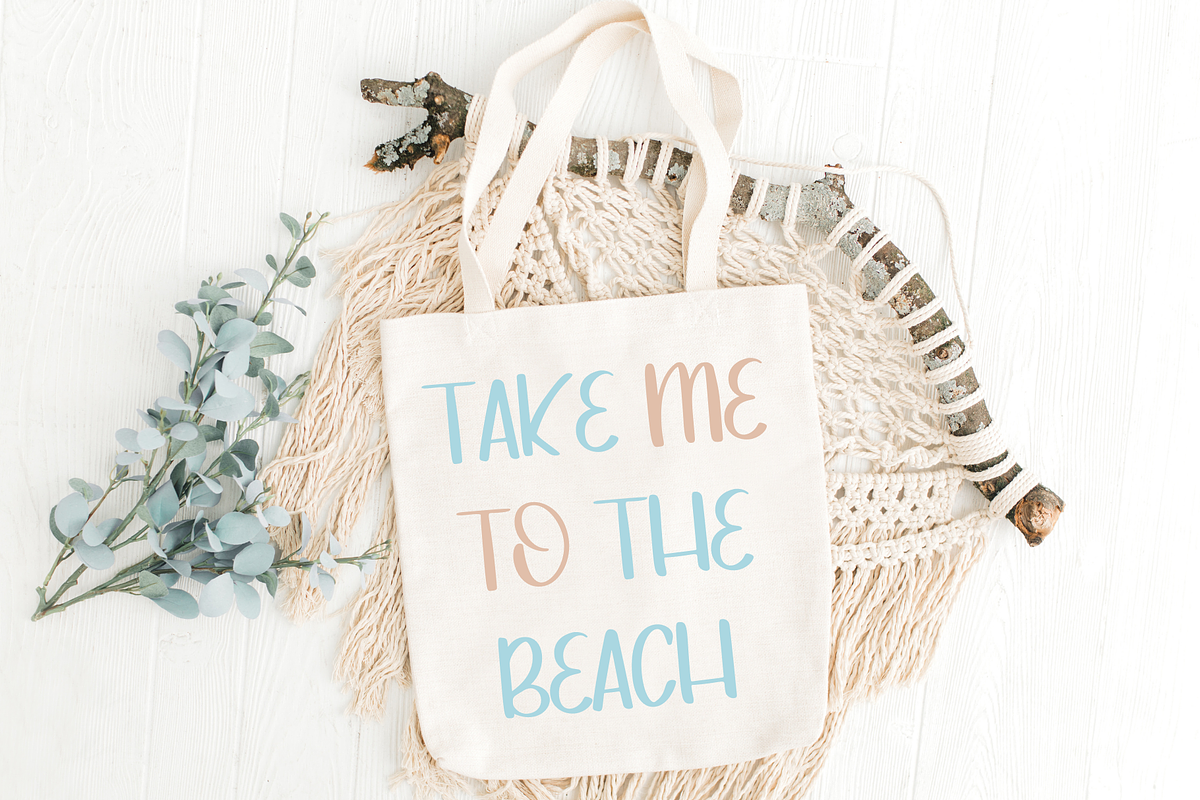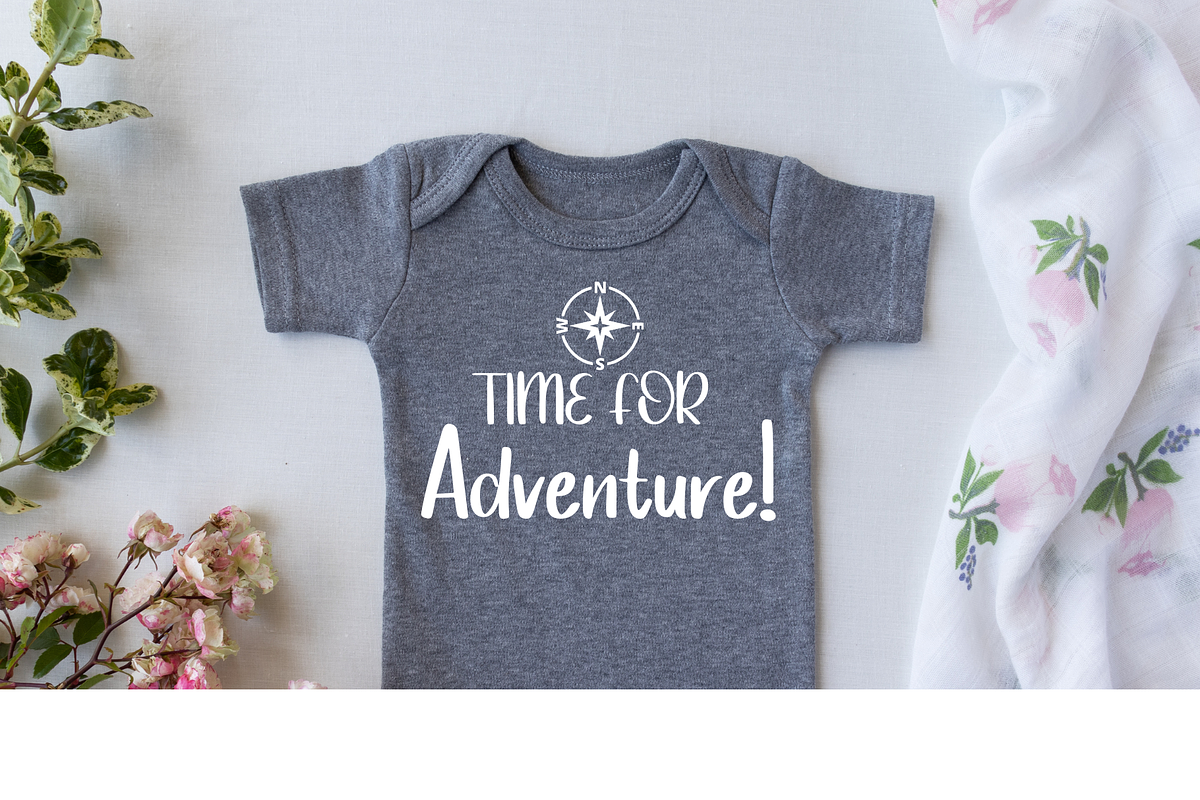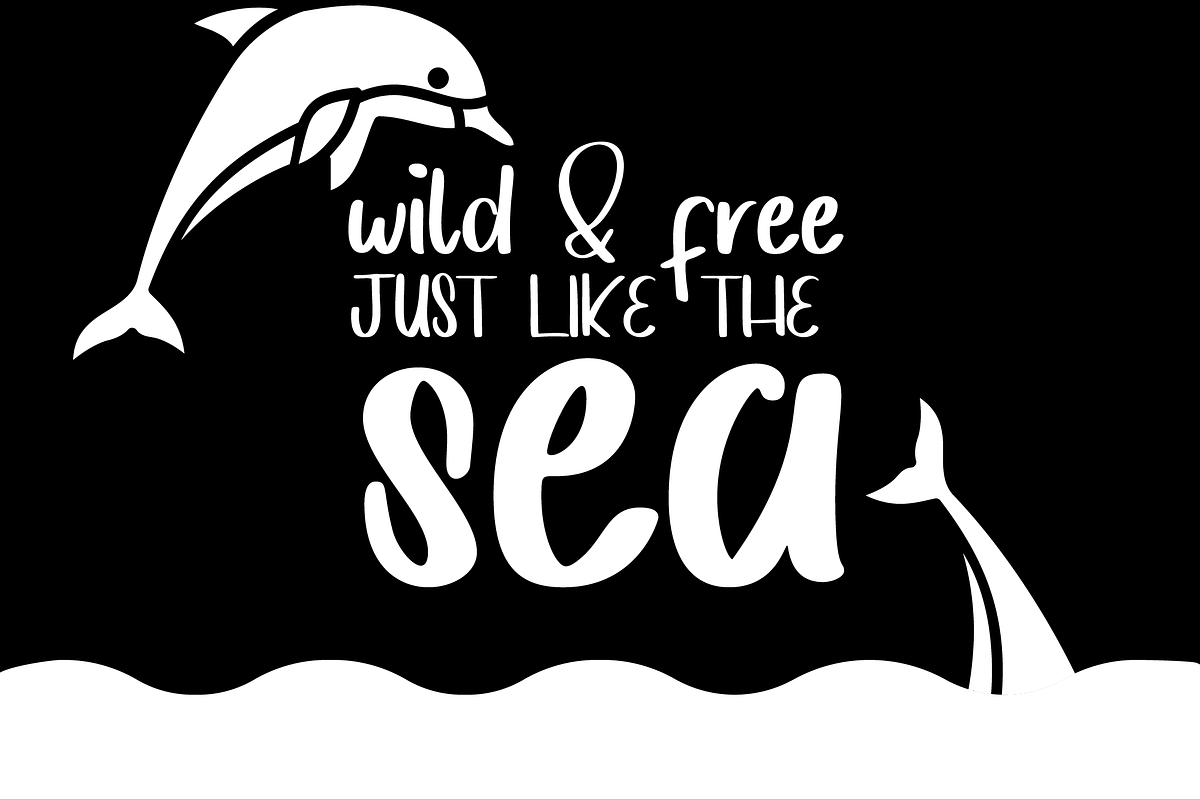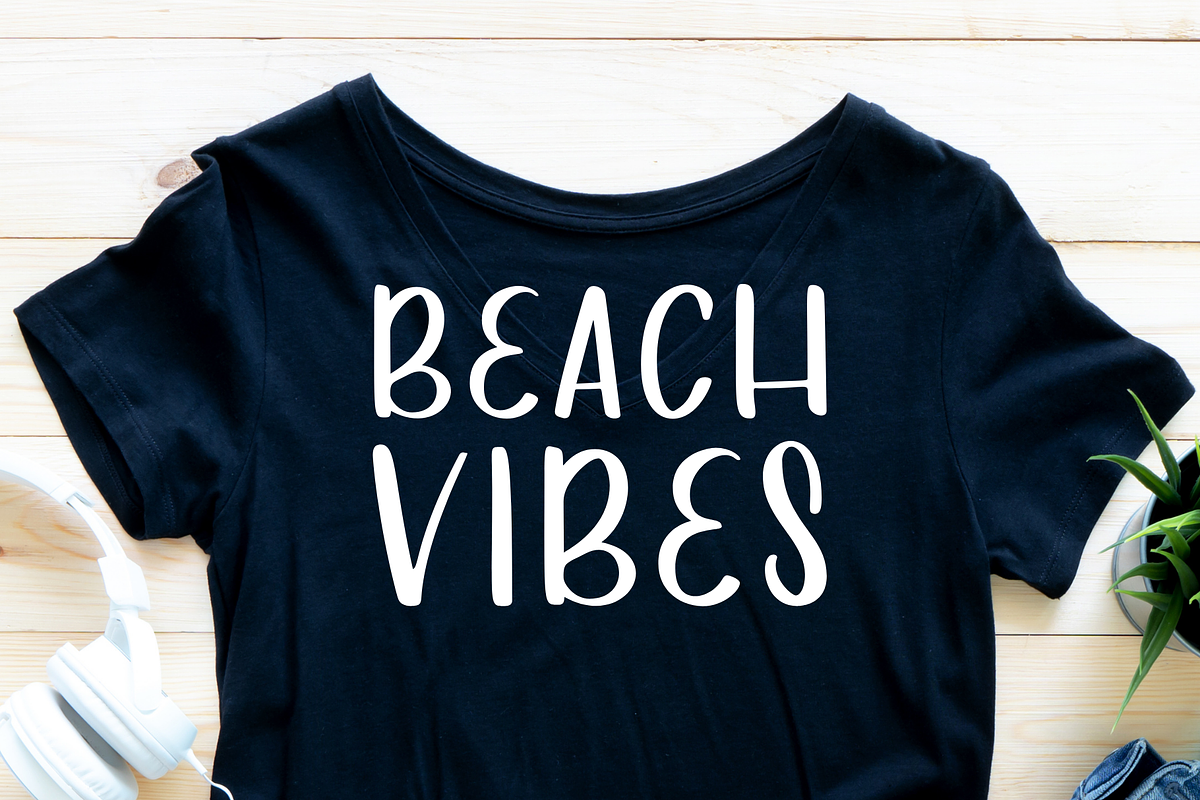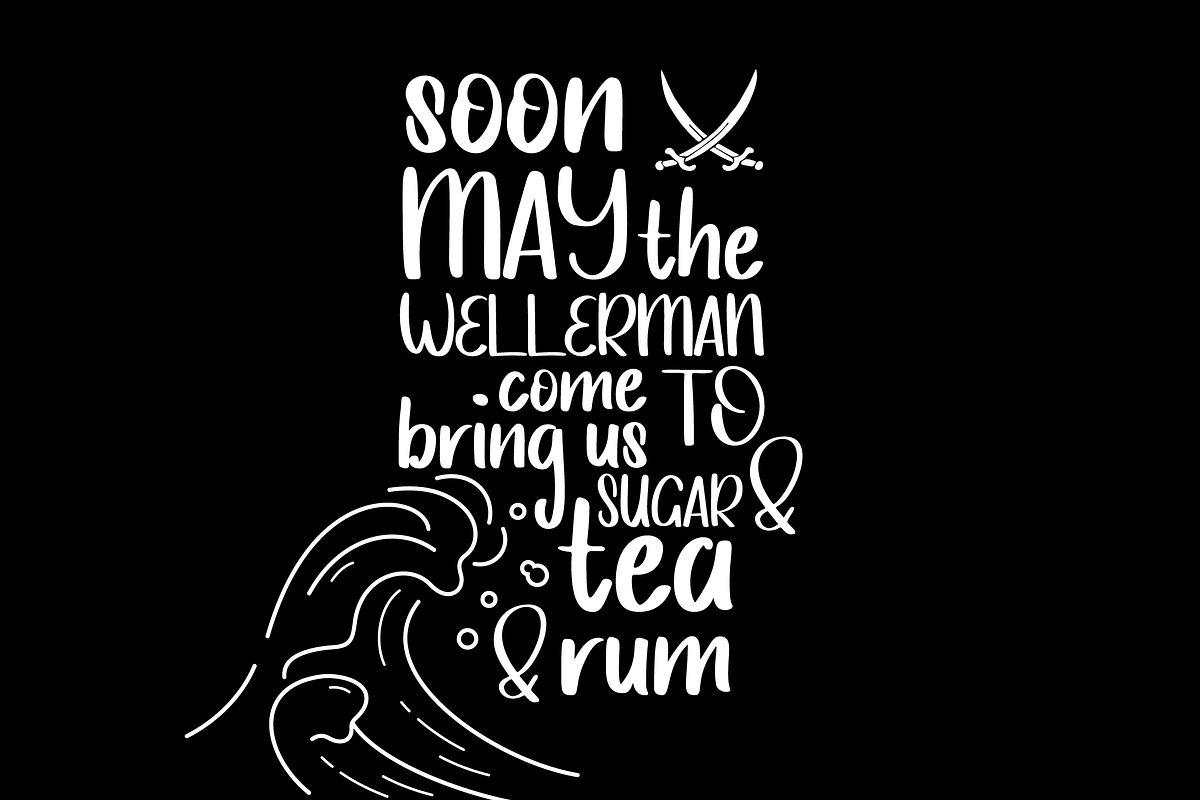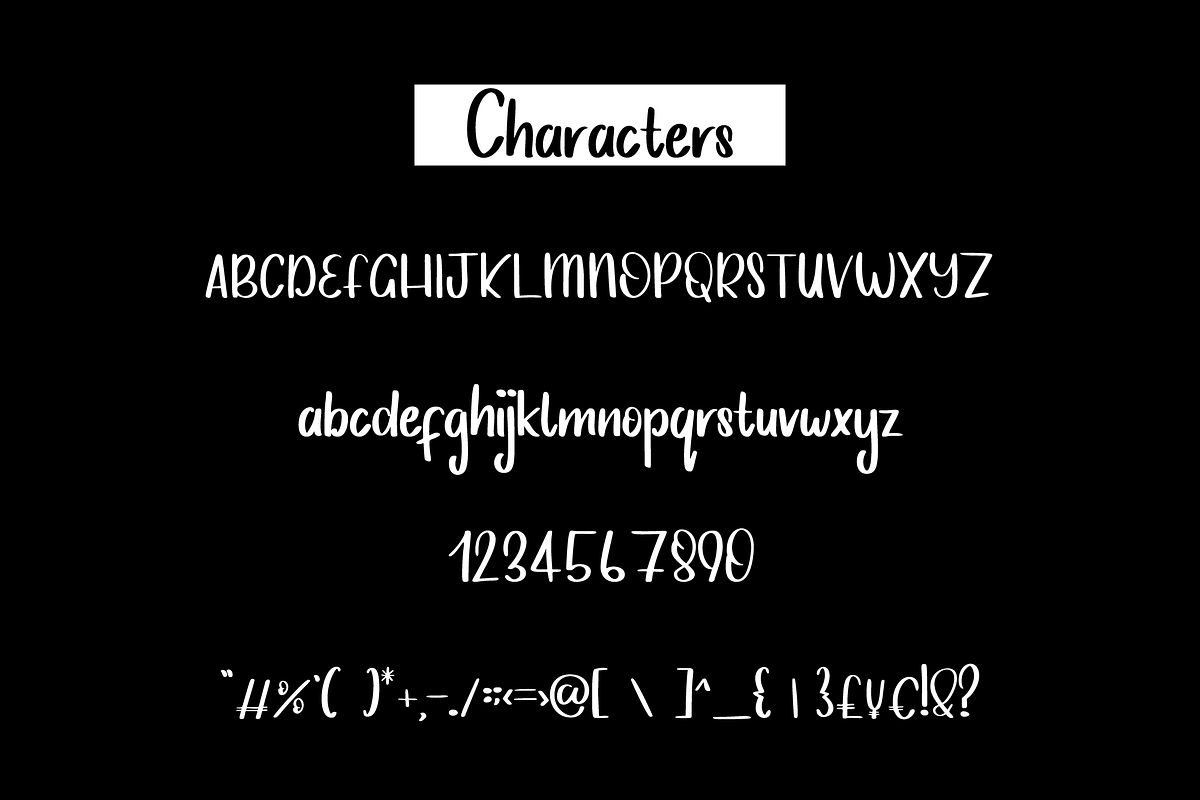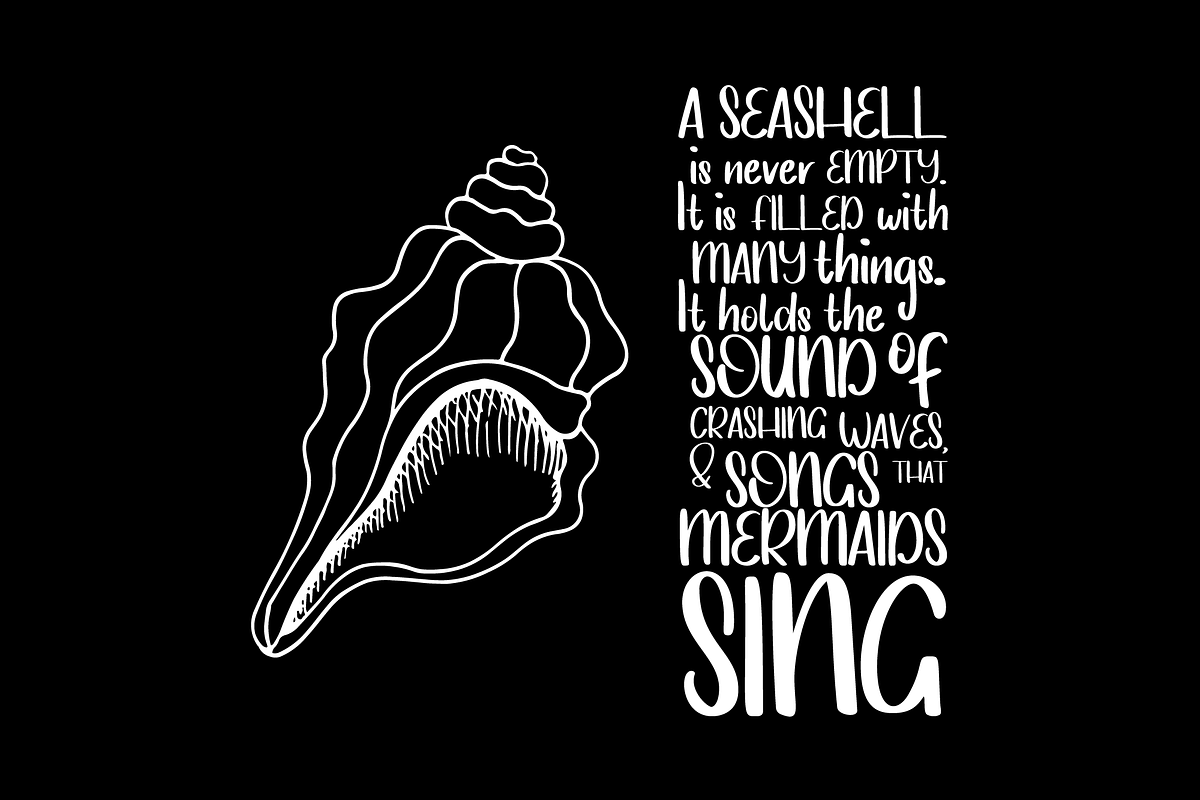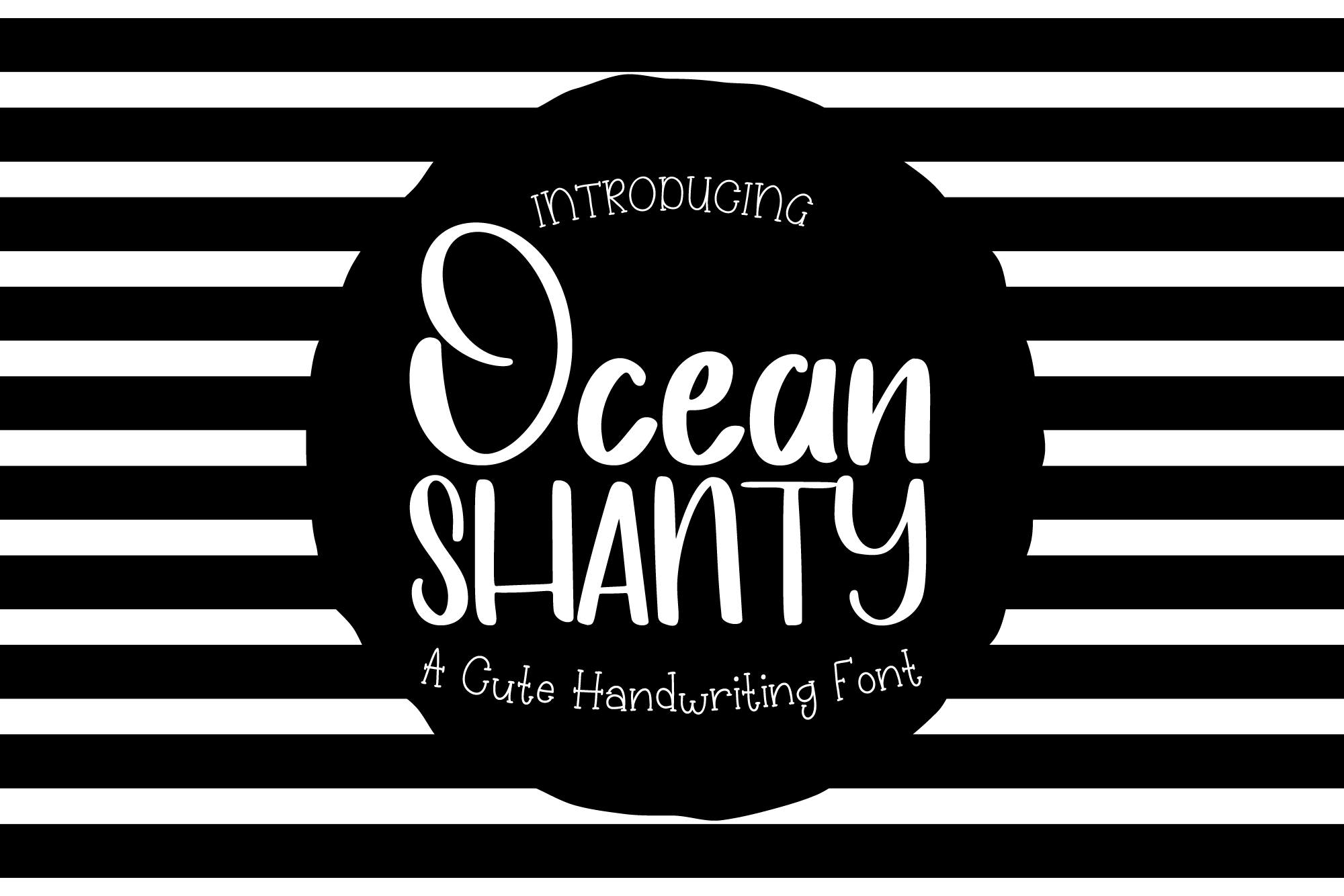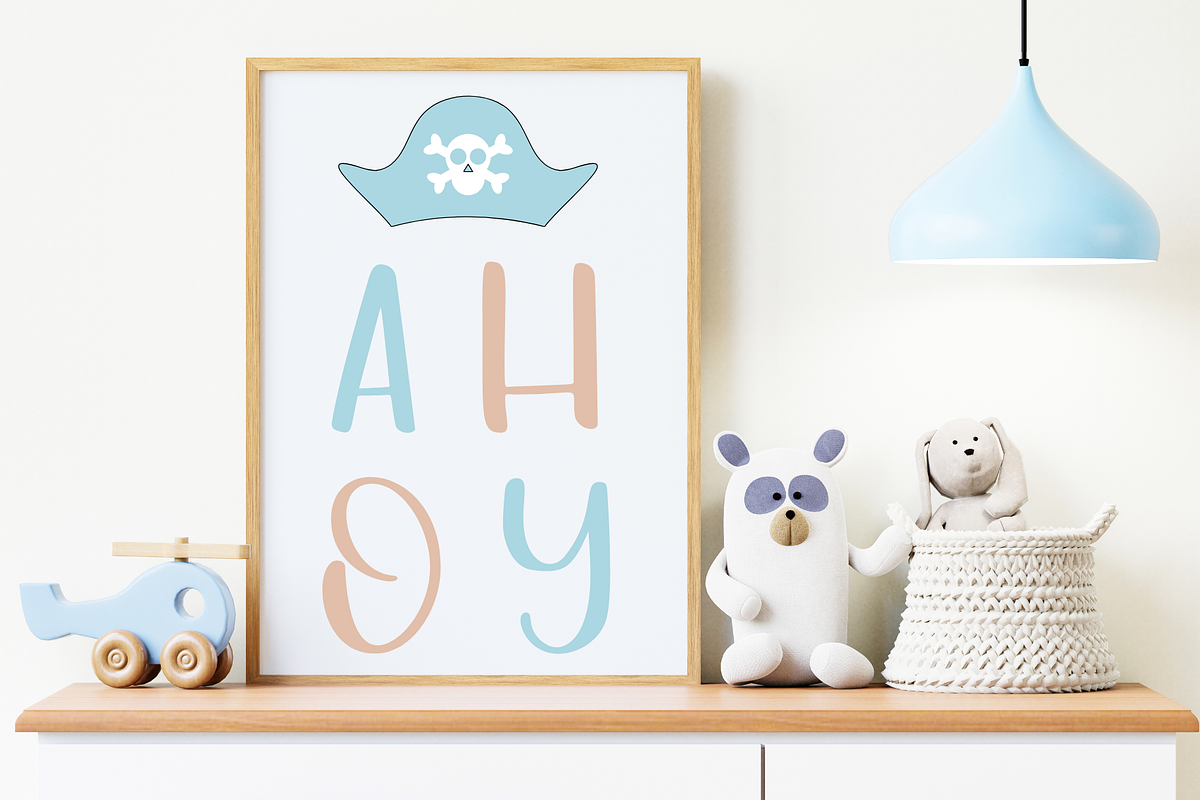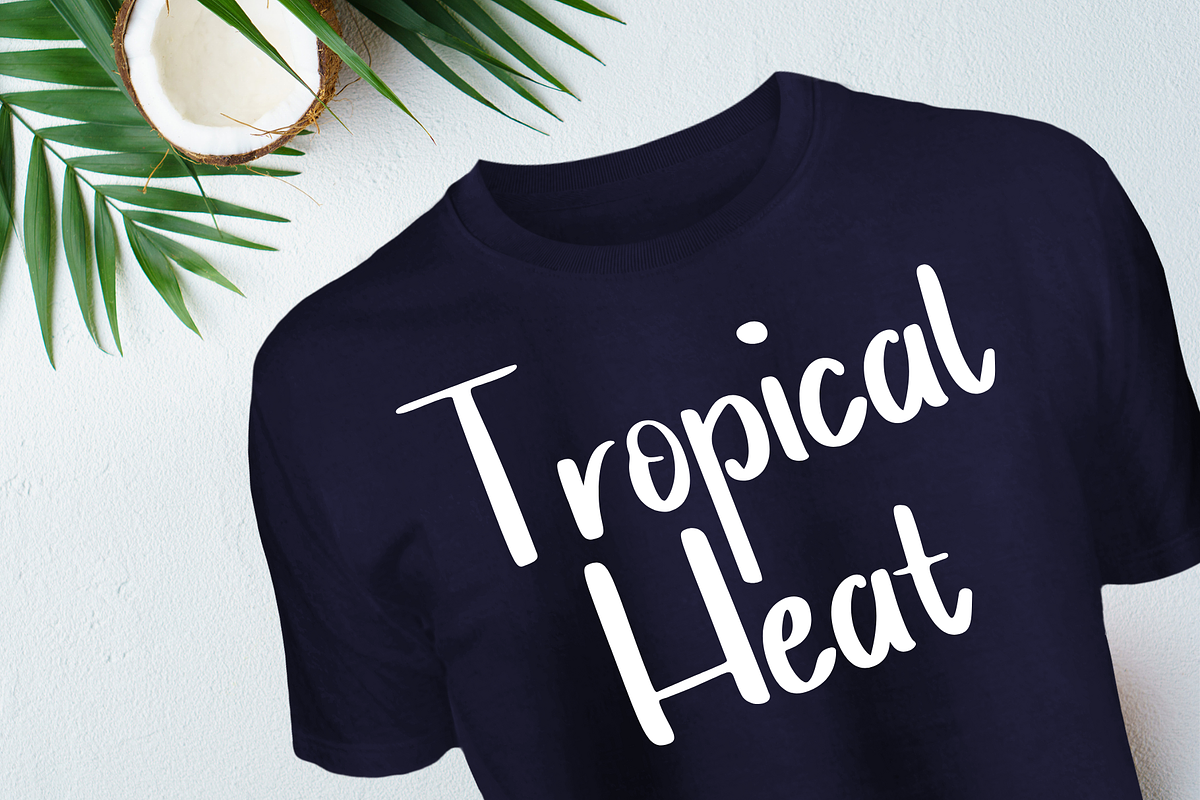
Ocean Shanty Cute Handwriting Font
A fun handwritten opentype font.
Ocean Shanty is a sans serif font with a cute handwritten design. Perfect for a wide range of design styles and applications such as logo design, wedding & party invitations, business branding, & web design.